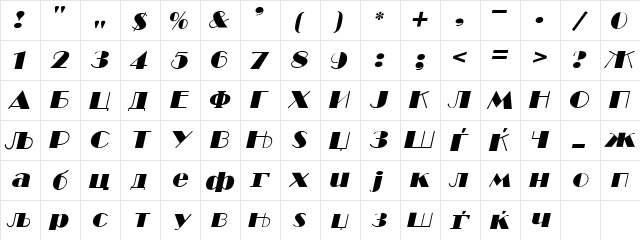
Mak_Broadway Italic
Design Context for Mak_Broadway Typeface
Mak_Broadway is a composed and adaptable typeface that performs quietly and consistently across a wide range of design contexts. The dynamic lean of this cut emphasises speed and emphasis in any layout.
Pro Tip: Use Mak_Broadway for emphasis, pull quotes, and subheadings where its slanted energy can add rhythm to the layout.